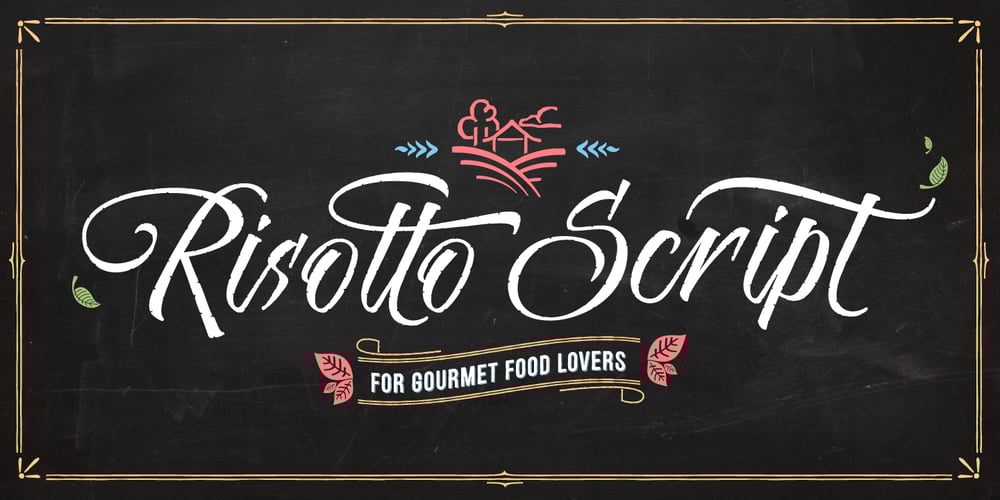
Risotto Script Font Family was designed by Felipe Calderón and published by Estudio Calderon. Risotto Script contains 1 styles and family package options. Risotto Script is a sexy font designed by Felipe Calderón, it represents the texture, sound, smell and flavor of food that come in those interesting packages with different concepts. This font makes you want to eat it because it is designed with a unique texture like a lot of vegetables, it has flourishes that suggest herbs and country roots. Calligraphy with folded pen and food packaging were two of the inspirations to develop this project that will work well wherever it is applied. Risotto Script Pro has 672 glyphs that have the purpose of covering a lot of writing options with different results, by applying OpenType programming as: – Standard ligatures – Stylistics alternatives – Contextual alternates – Discretionary ligatures – Swashes – Terminal forms – Stylistic Set 1, 2, 3 and 4 – Initials (it includes leaves in some endings) NOTE: The X height is generous, in order to design signs to 8 and low size. You`d better get the “extras” for a more complete experience. Most of the Standard ligatures include Stylistics alternatives with detailed endings Multiple language options.